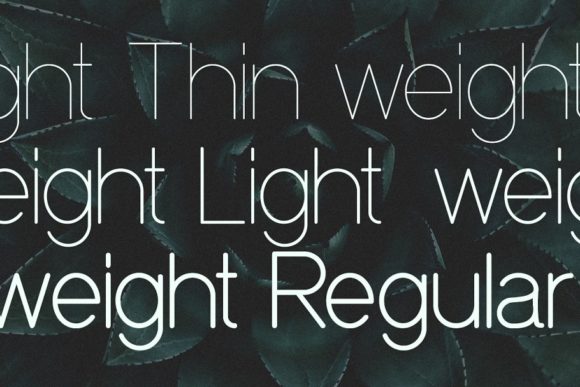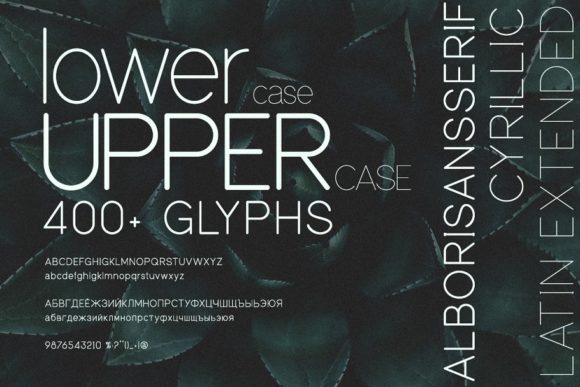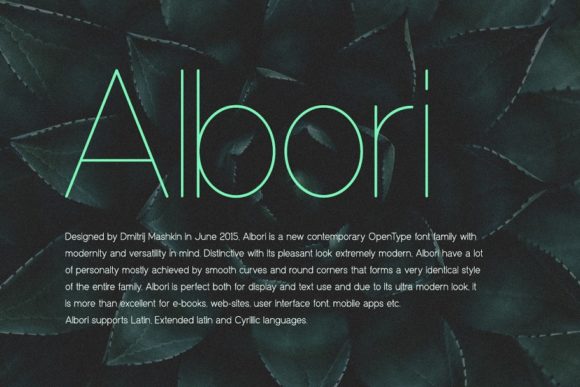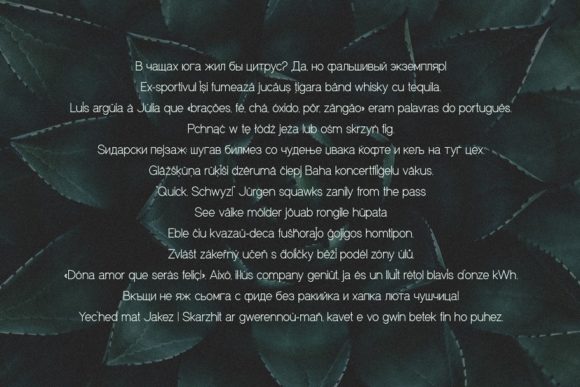
Introducing Albori Font: Elevate Your Designs with Elegance and Sophistication
Albori is an elegant and distinct sans serif font that has been making waves in the design community. Its unique blend of modernity and sophistication makes it an ideal choice for a wide range of projects. Whether you’re a designer, crafter, or simply someone looking to add a touch of elegance to your creative endeavors, Albori is sure to impress. In this article, we’ll dive into the world of Albori Font, exploring its features, benefits, and uses, as well as provide tips on how to incorporate it into your designs.
What is Albori Font?
Albori is a sans serif font that boasts a clean, modern aesthetic. Its sleek lines, precise curves, and balanced proportions make it a versatile choice for various design applications. Albori’s distinctiveness lies in its ability to convey a sense of sophistication and elegance, making it perfect for projects that require a touch of refinement.
Key Features of Albori Font
• Elegant and Distinctive: Albori’s unique design sets it apart from other sans serif fonts, making it an excellent choice for designers looking to create something memorable.
• Highly Versatile: Albori can be used in a wide range of projects, from branding and advertising to packaging and digital media.
• Easy to Read: Albori’s clear and precise design ensures that your text is easy to read, even at small sizes.
• Scalable: Albori performs well at various sizes, from large headlines to small body text.
Benefits of Using Albori Font
So, why choose Albori Font for your next project? Here are just a few benefits of using this elegant sans serif font:
• Adds Sophistication: Albori’s elegant design adds a touch of sophistication to any project, making it perfect for high-end brands and luxury products.
• Enhances Readability: Albori’s clear and precise design ensures that your text is easy to read, reducing eye strain and improving user experience.
• Versatile: Albori can be used in various design applications, from print to digital media.
• Unique: Albori’s distinctive design sets it apart from other fonts, making it an excellent choice for designers looking to create something memorable.
Using Albori Font in Your Designs
Albori Font can be used in a wide range of design applications, including:
• Branding: Use Albori to create elegant and sophisticated brand identities that make a lasting impression.
• Advertising: Albori’s clear and precise design makes it perfect for advertising campaigns that require a touch of elegance.
• Packaging: Add a touch of sophistication to your packaging designs with Albori’s elegant sans serif font.
• Digital Media: Use Albori in your digital media projects, such as website designs, social media graphics, and more.
Tips for Working with Albori Font
Here are a few tips for working with Albori Font:
• Pair with Other Fonts: Experiment with pairing Albori with other fonts to create unique and interesting typography combinations.
• Adjust Font Sizes: Play with different font sizes to create visual hierarchy and add emphasis to your text.
• Use Colors Wisely: Choose colors that complement Albori’s elegant design, such as neutral tones or bold accent colors.
Font Name Albori Font
Author Dmitry Mashkin
Albori Font is an elegant and distinct sans serif font that can elevate your designs to new heights. Its versatility, readability, and unique design make it an excellent choice for a wide range of projects. Whether you’re a designer, crafter, or simply someone looking to add a touch of elegance to your creative endeavors, Albori is sure to impress. So, add Albori to your creative toolkit and notice how it makes your designs stand out!